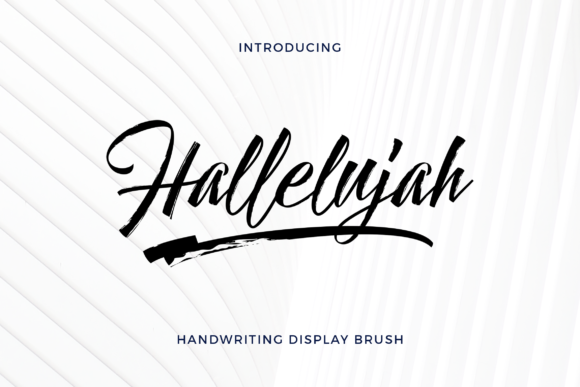
Hallelujah, a splendid handwritten script font, unchains your creativity, allowing your texts to dance with an endearing charm. Crafted with meticulous care, Hallelujah's flowing strokes and elegant curves infuse your designs with a touch of whimsy and sophistication.
Immerse yourself in the world of Hallelujah, where your words take center stage, captivating your audience with their graceful presence. From branding projects and logos to headers, posters, and apparel, Hallelujah effortlessly elevates the visual appeal of any design, leaving a lasting impression that resonates with your audience.
Experience the versatility of Hallelujah, a font that seamlessly adapts to your diverse design needs. Whether you're creating packaging, business cards, or embarking on a creative journey like invitations or social media graphics, Hallelujah becomes an indispensable tool, adding a touch of elegance and creativity to your projects.
Hallelujah is more than just a font; it's an artistic expression that amplifies your message with captivating style. Unlock the potential of Hallelujah and witness the transformation of your creative vision into a captivating reality. Embrace the allure of Hallelujah and let your designs shine with an enchanting allure that captivates and inspires.